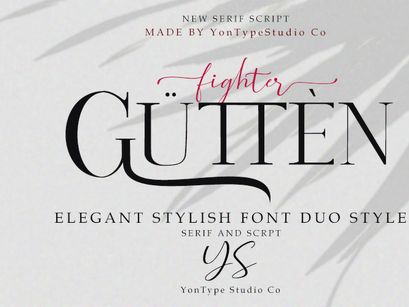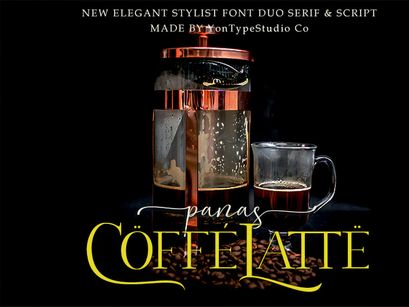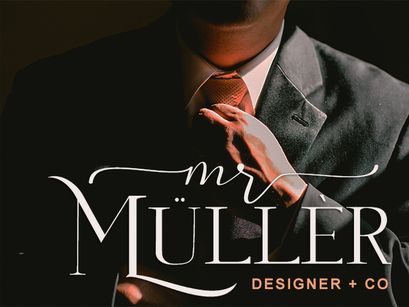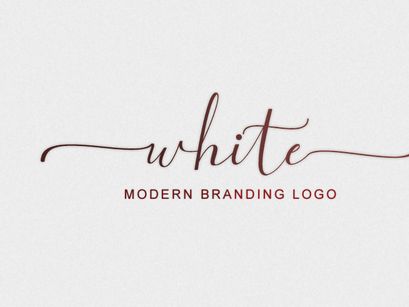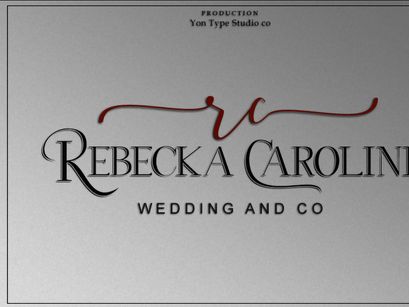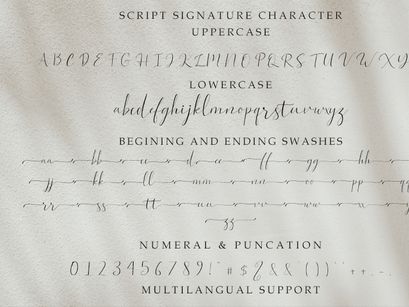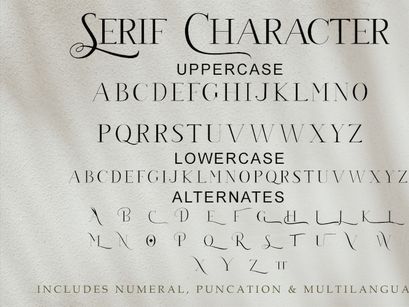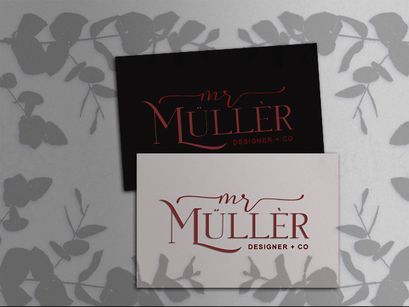
Free Demo Gutten Fighter Font Duo
Free Demo Gutten Fighter Font Duo is an awesome demo font. It is coming with 2 font styles in one freebie that makes you easily combine the ideal font for your works. Also, this font has some amazing glyph styles that match your projects such as wedding invitation, gift cards, business cards, flyers, and more. However, this free font is available for personal use license. But, you can also get the premium version for using it on commercial projects.